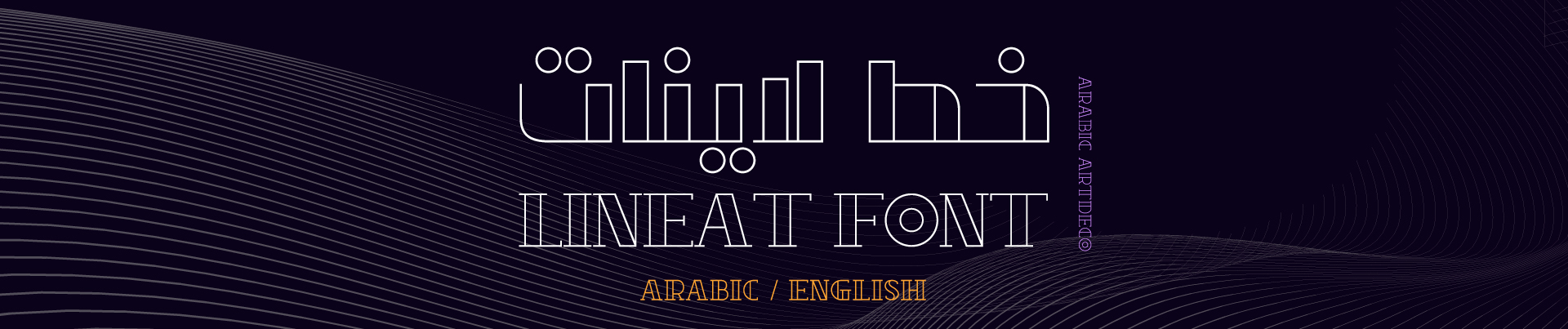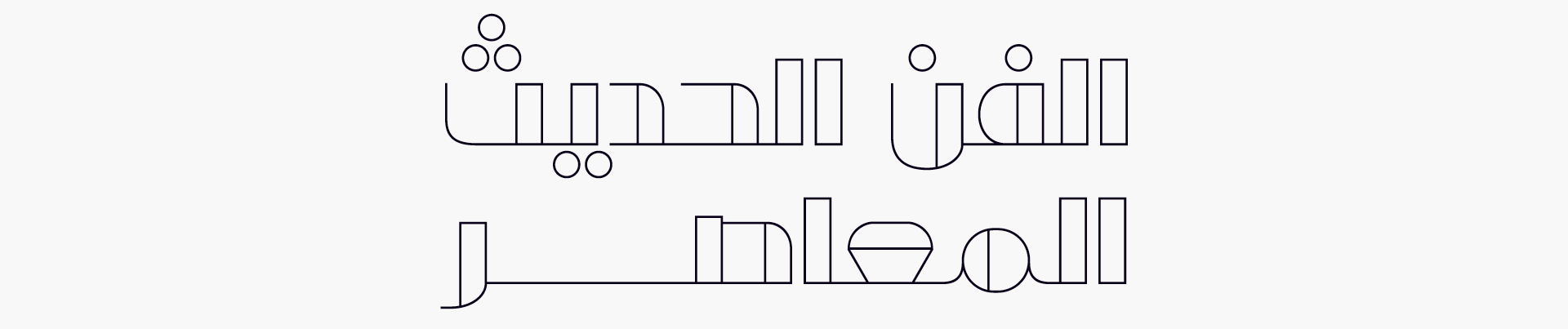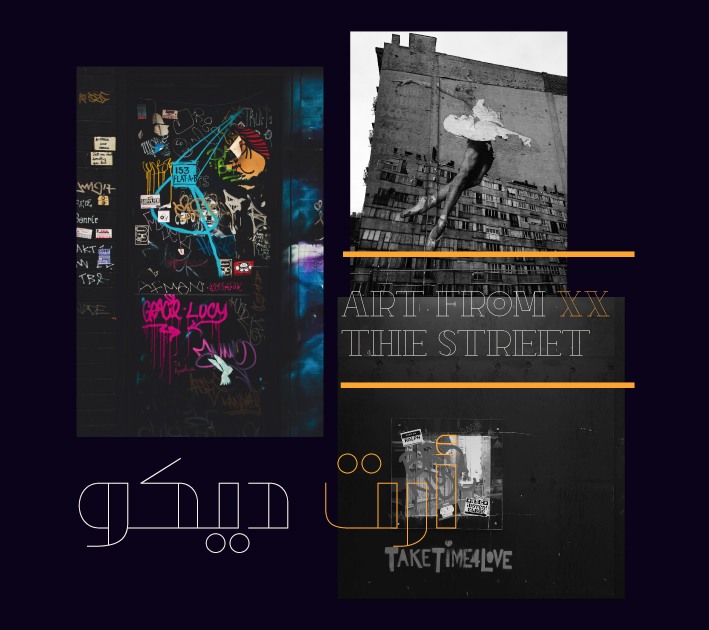
About Lineat Font
Introduction:
LINEAT Font is a Linear font Modern & Unique. Inspired by the art deco art.
Weights and Supported Languages:
Lineat font is available in two styles “Linear and Filled”.
It supports Arabic and English languages.
Usage:
Lineat is used in headlines, social media posts, and visual identities.